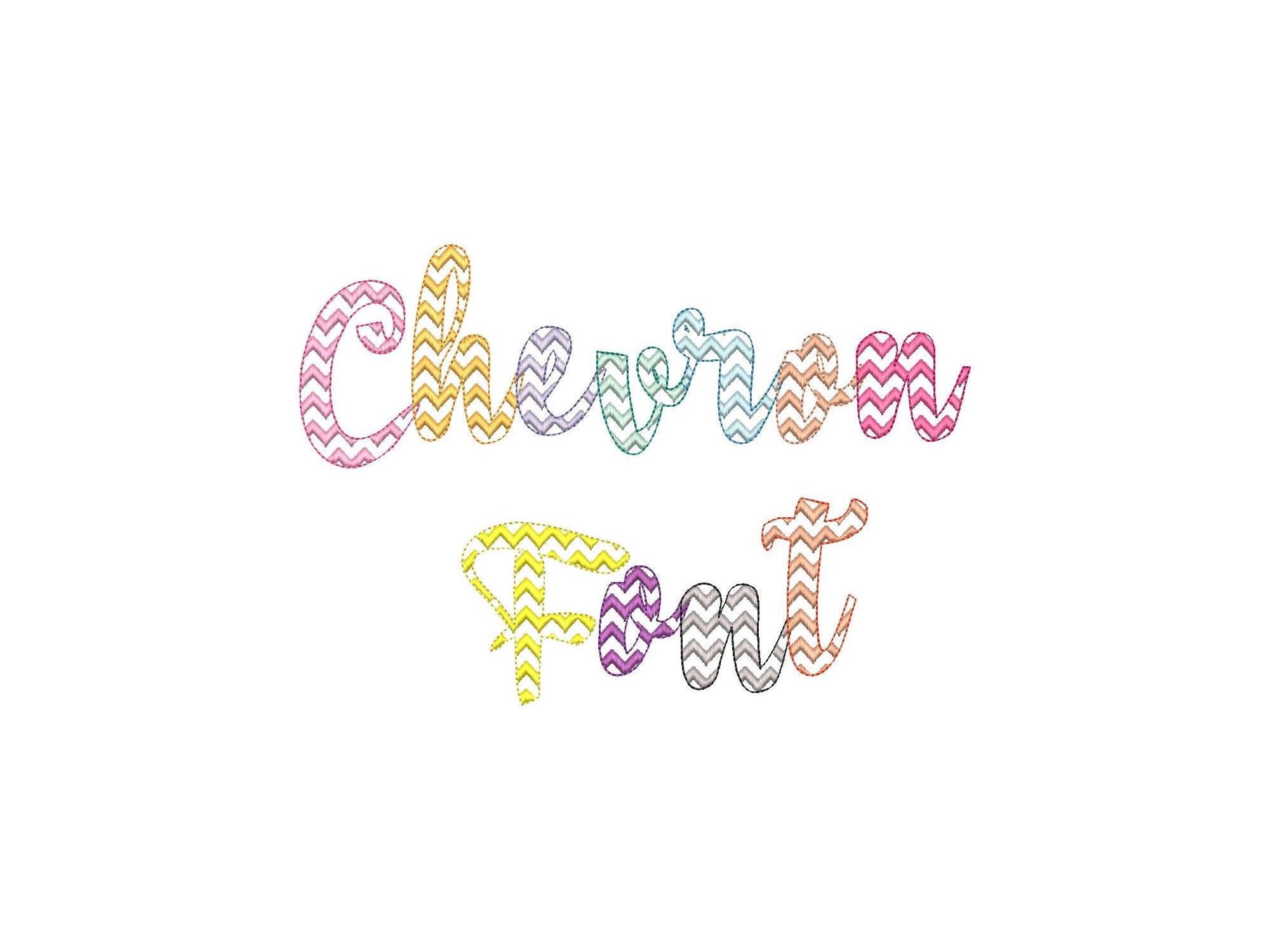
Chevron zigzag RIC RAC FONT script alphabet letters and numbers machine embroidery designs in many sizes, satin stitch zig-zag monogram name
Chevron lines are part of the design. The background fabric looks through. Awesome effect!
Whole alphabet: uppercase and lowercase letters, numbers, and punctuation.